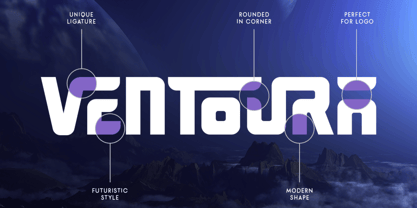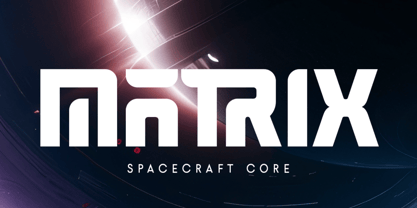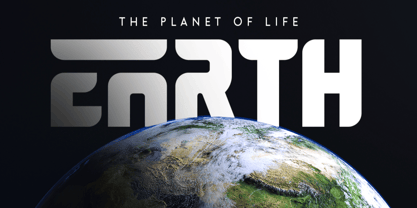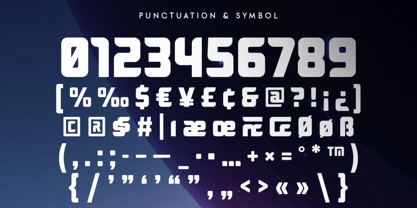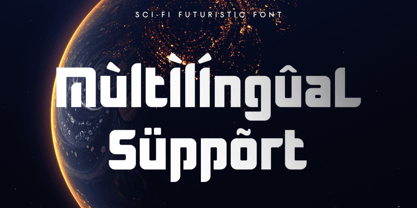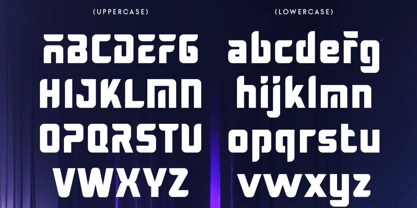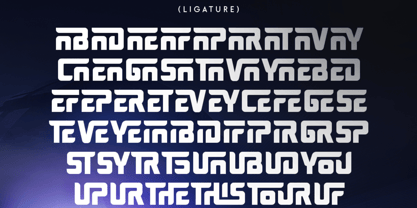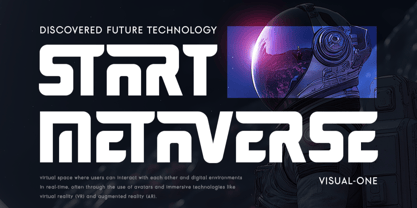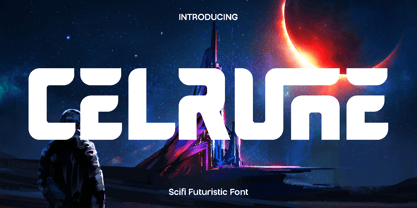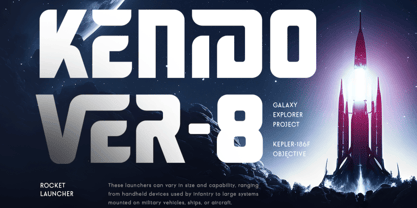
Celrune
The Celrune Font Family was designed by Olivia Love and published by Only Fonts. Celrune contains 1 styles. More about this family
Celrune – Sci Fi Futuristic Font Celrune is a futuristic display font inspired by the endless mysteries of the cosmos and the limitless imagination of science fiction. Designed with sleek geometry, sharp precision, and modern visual energy, Celrune captures the essence of advanced technology and futuristic exploration. Each letterform is meticulously crafted to create a bold and innovative appearance that transforms ordinary typography into a striking visual statement. This font is ideal for visionary projects that require a modern and cutting-edge atmosphere. Celrune excels in technology branding, gaming graphics, movie titles, digital interfaces, posters, album covers, sci-fi concepts, and futuristic advertising. Its robust structure and stylish forms allow it to stand out effortlessly across both print and digital media, making every design feel immersive and forward-thinking. Celrune combines creativity with versatility, enabling designers to explore bold concepts and imaginative layouts. The included ligature characters enhance the seamless and dynamic flow of typography, amplifying the font's futuristic personality. Whether you are crafting a cyber-inspired logo or a cinematic headline, Celrune delivers a modern aesthetic filled with energy and innovation. Crafted for creators eager to push creative boundaries, Celrune infuses a powerful sense of motion, technology, and imagination into every project. It is the perfect choice for designs that aim to be modern, experimental, and unforgettable. Celrune Sci Fi Futuristic Font Features: • Ligature characters ready • Punctuation, numbers, and symbols • Uppercase and lowercase • OpenType features • Multilingual support for 50+ languages • Futuristic and modern sci-fi style • Ideal for gaming, technology, branding, and cinematic projects